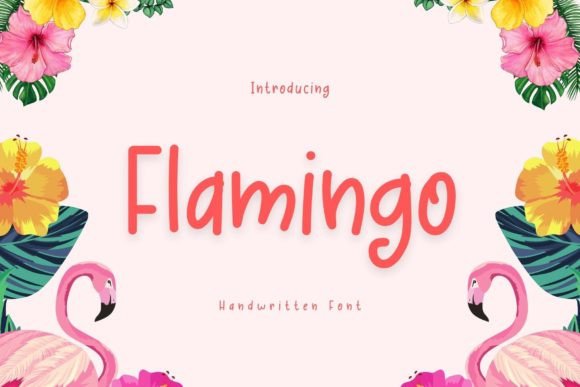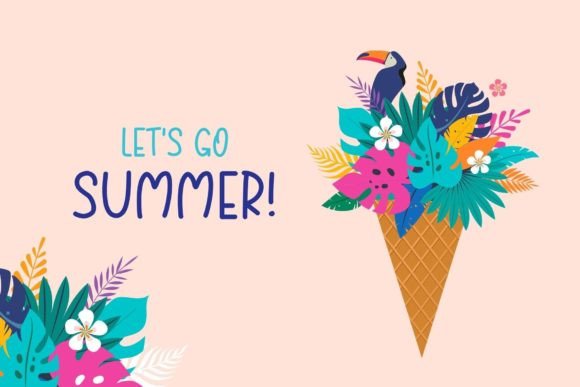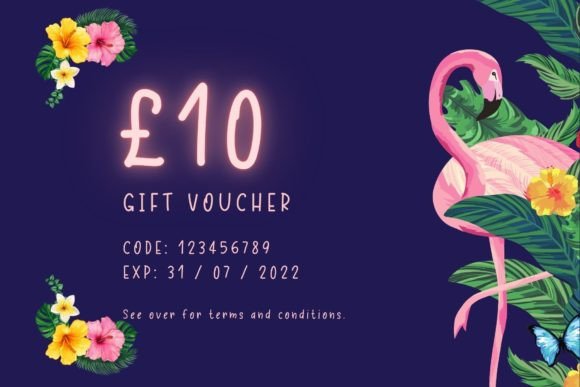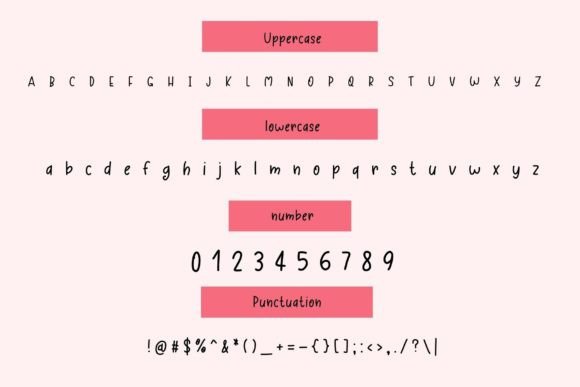
Flamingo Font
About the Flamingo Font
The wait is over! The incredible Flamingo Font is now available for your design toolkit. Flamingo is a delicate handwritten font carefully crafted for a cool and unique design. This font can be used to write letters, invitations, food products, titles, and more.
Flamingo’s delicate nature makes it ideal for projects requiring a touch of elegance and personality, such as wedding invitations, branding for boutiques, or packaging for artisanal food products. Headlines and short text blocks also benefit from its unique charm. However, its handwritten style is less suitable for body text or UI elements where readability is paramount; long paragraphs would be difficult to decipher.
Consider pairing Flamingo with a clean sans-serif like Lato for a modern contrast, or a classic serif like Garamond for a more timeless feel. A playful script font could also work well for secondary text, adding a layer of visual interest without overpowering Flamingo’s delicate character.
Flamingo’s overall personality is best described as elegant yet friendly; its soft curves and subtle variations convey warmth, while maintaining a sophisticated aesthetic. This makes it a great choice for brands that aim for a balance between approachable and refined.
Flamingo Font Usage Examples
Flamingo Font Example